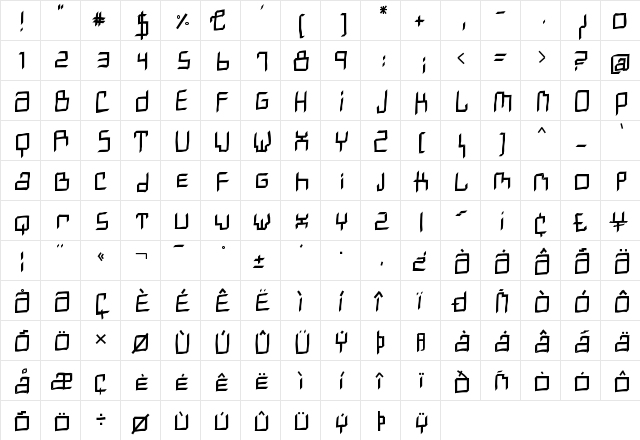
Marvin Medium
Design Context for Marvin Typeface
Marvin is a composed and adaptable typeface that performs quietly and consistently across a wide range of design contexts.
Pro Tip: Use Marvin in both headline and body roles to test its range before committing to a single application.